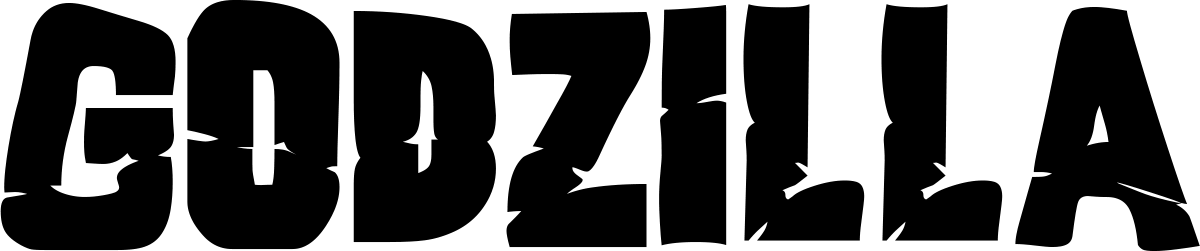
Godzilla Font
Godzilla is an absolutely brilliant choice for capturing a strong modern feature if you’re up for it. This excellent quality makes this cartoon animal font easily fit plenty of projects, social media content, banners, website designs, flyers, and else.
As long as it’s a matter of maintaining a touch of playfulness as well as a hint of authenticity, a rather rare but effective combo, Godzilla can work wonders no doubt. Give it a try now and prepare to be amazed!